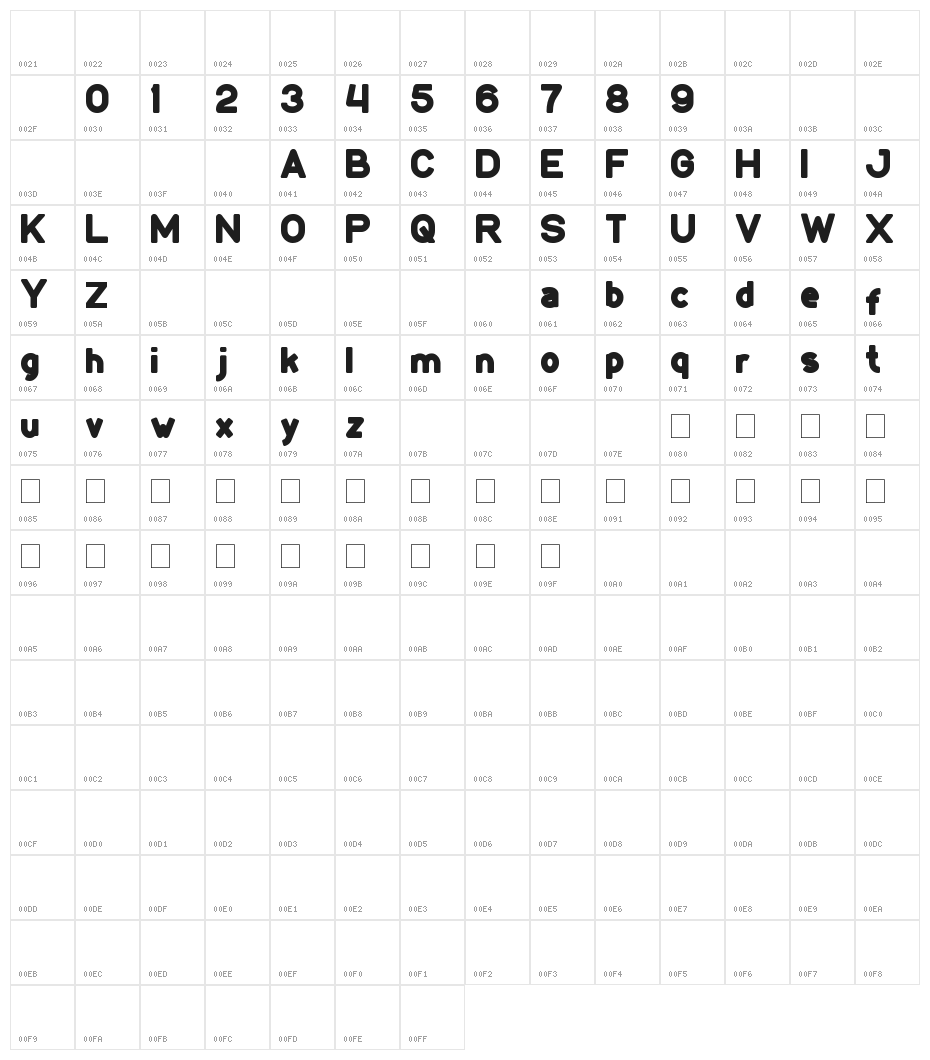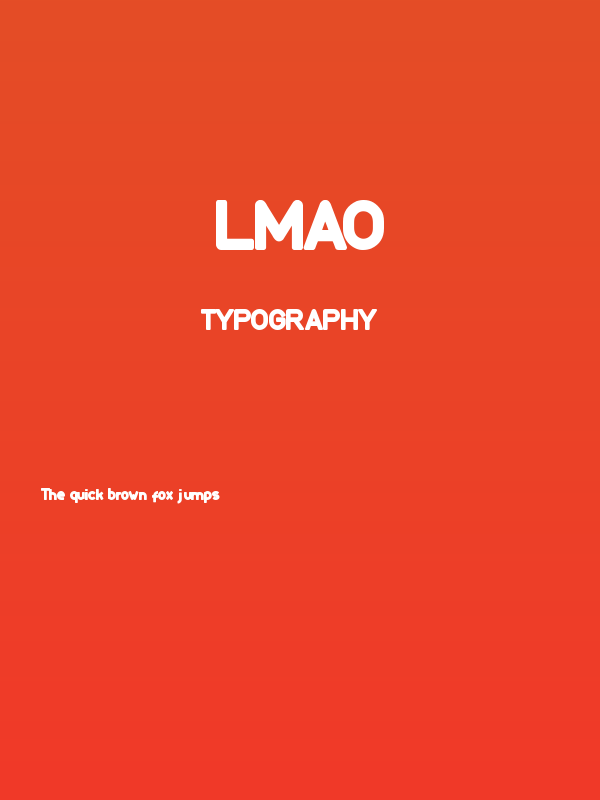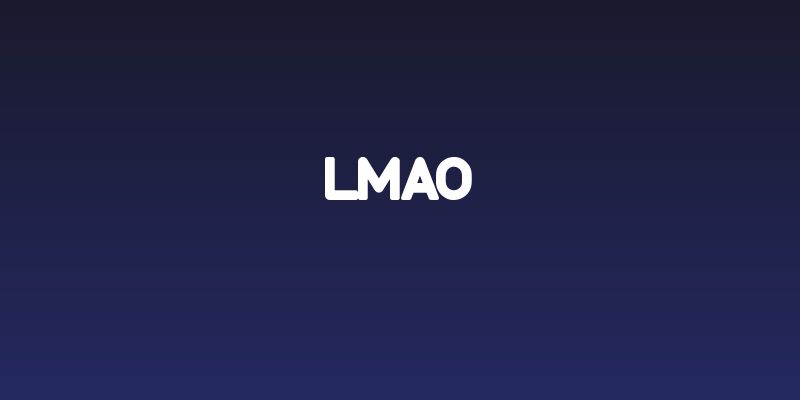
LMAO Font
LMAO Description
This font features bold, rounded characters with a playful and modern aesthetic. The letters are uniformly thick, giving a strong and impactful appearance. The rounded edges soften the overall look, making it approachable and friendly. The numbers and special characters follow the same design principles, ensuring consistency across all glyphs. This font is ideal for projects that require a bold statement while maintaining a casual and inviting tone.
Proposed ProjectsIdeal for children's books, playful branding, posters, and social media graphics.